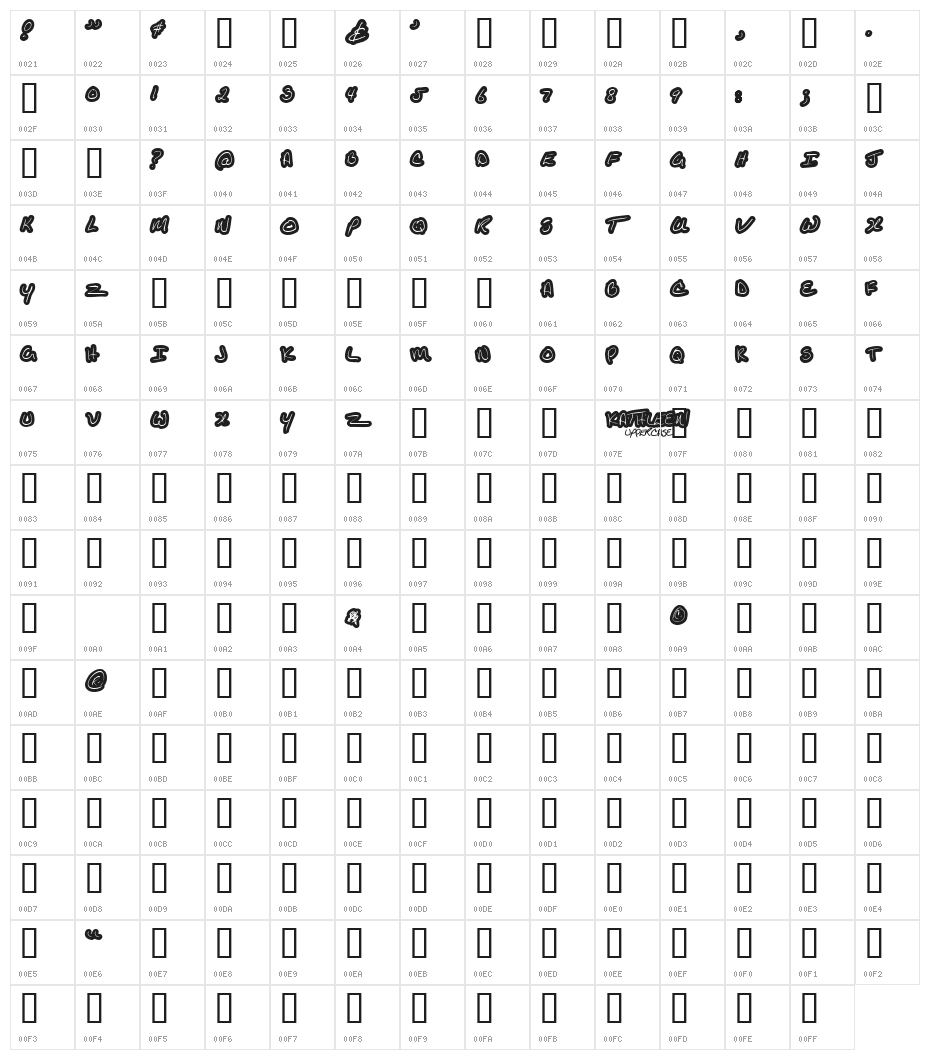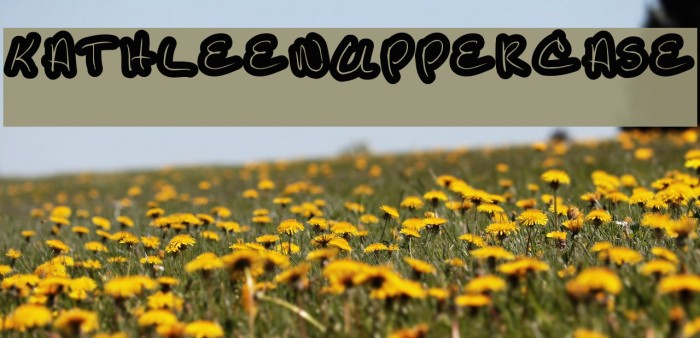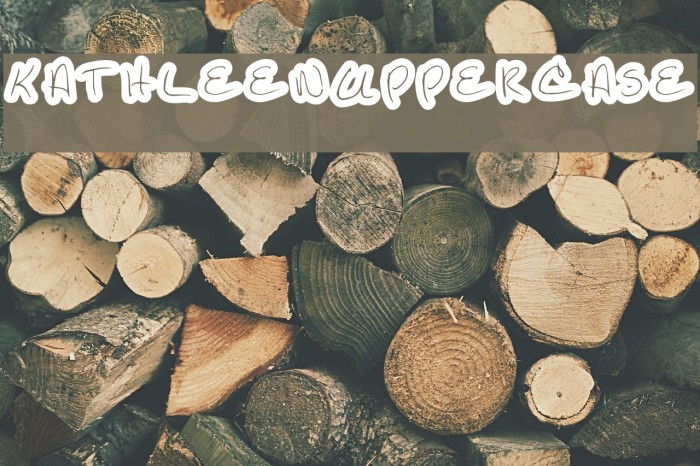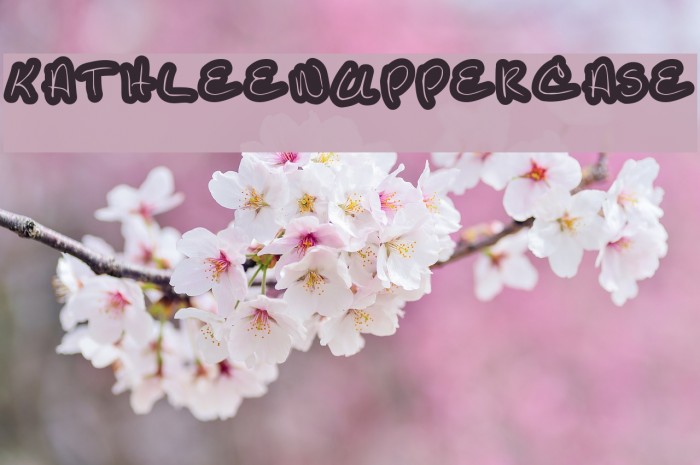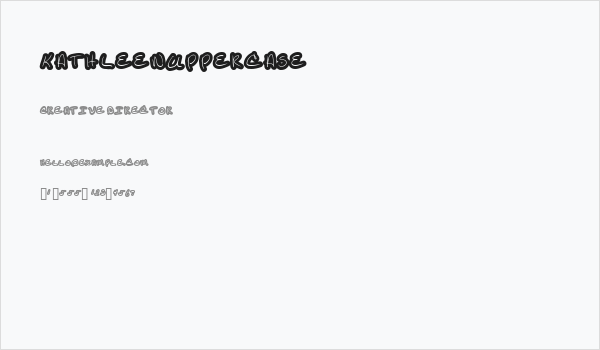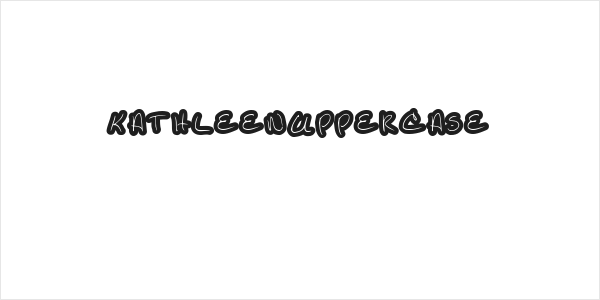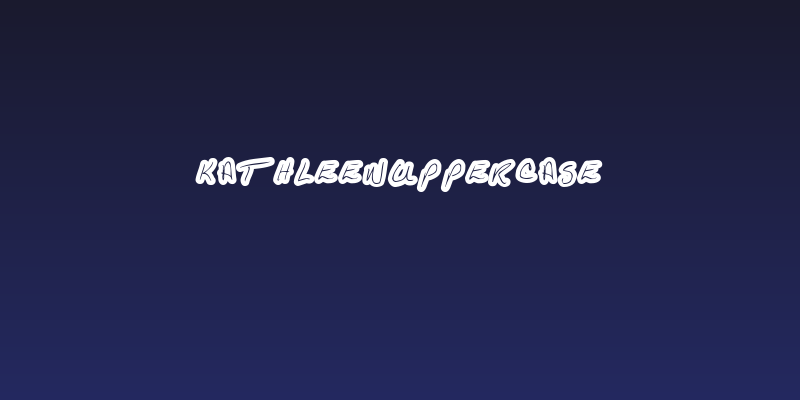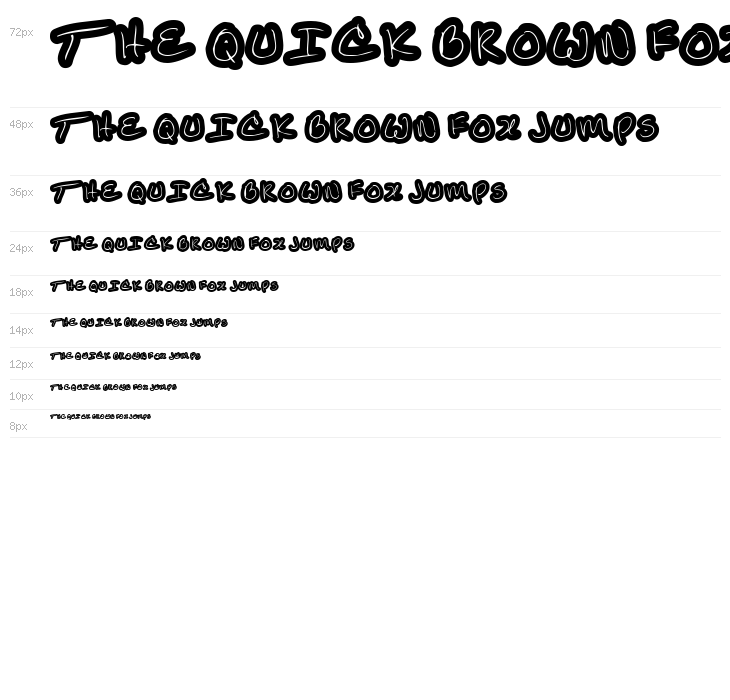
KathleenUppercase Font
KathleenUppercase Description
This font features a bold, playful style with a thick outline that gives it a cartoonish and dynamic appearance. The characters are rounded and slightly slanted, adding a sense of movement and energy. The uppercase and lowercase letters maintain a consistent style, with the lowercase letters being slightly smaller but equally bold. Numbers and special characters are designed to match the overall aesthetic, ensuring a cohesive look. The font's thick strokes and outlined design make it highly legible and eye-catching, suitable for various creative applications.
| Overall Style | Playful, Cartoonish |
| Proposed Projects | Ideal for children's books, comic strips, playful branding, and eye-catching posters. |